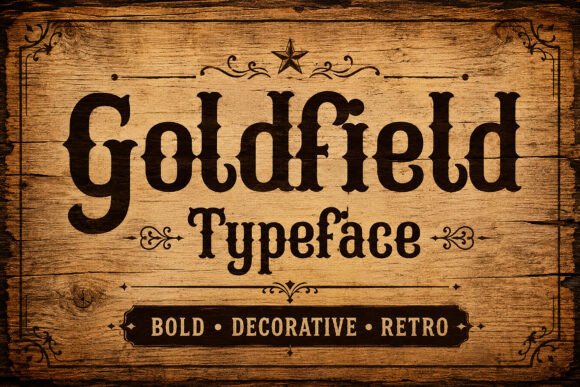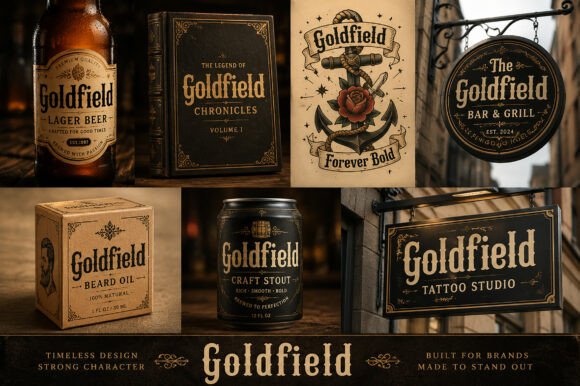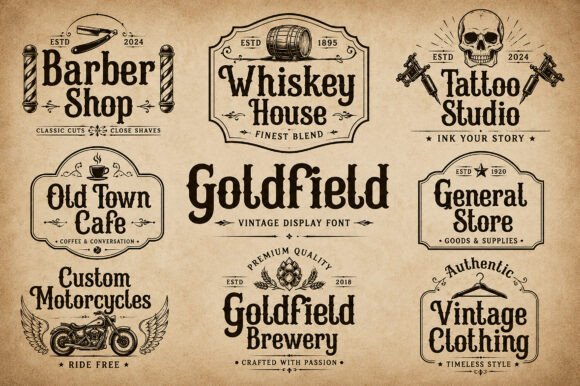
Introducing Goldfield: The Vintage-Retro Serif Font that’s Stealing Hearts
Have you ever been in the middle of a design project, and suddenly, you’re stuck on finding the perfect font? I recall a recent experience where I was working on a western-themed poster, and my client specifically asked for a font that would transport their audience back to the wild west. After hours of scouring the internet, I stumbled upon Goldfield – an alluring vintage-retro serif font with a bold western twist. And let me tell you, it was love at first sight! 💕
The Story Behind Goldfield
Goldfield is more than just a font – it’s a time machine in typography form. Crafted to evoke nostalgia, Goldfield is a unique iteration of classic typography mixed with old-west aesthetics, making it the perfect canvas for creative expression. Its distinctive attributes, such as impressive curves, ornamental edges, and solid character shapes, collectively encapsulate a bygone era. But don’t be fooled by its historical allure; this typeface possesses a crisp visual impact allowing it to stand tall in the contemporary design scene.
My Honest Review of Goldfield
So, what do I love about Goldfield? Here are a few things that make it a standout font:
- ✨ Unique blend of vintage and retro elements with a bold western twist
- ✅ Impressive curves and ornamental edges that add a touch of elegance
- ✅ Solid character shapes that make it perfect for headlines and titles
- ✅ Timeless charm with a modern finish that fits perfectly in contemporary designs
Now, I’m not saying it’s perfect. Here are a few quirks to keep in mind:
- ⚠️ Some users might find the font a bit too bold for certain designs
- 🤔 Limited availability of certain OpenType features in certain software
Goldfield was inspired by the classic typography of the American West. Imagine riding into town on a dusty horse, with the sun setting over the horizon. That’s the feeling that Goldfield aims to evoke – a sense of nostalgia and timeless charm. The designer behind Goldfield wanted to create a font that would transport users back to a bygone era, while still feeling modern and fresh.
| Font Name | Goldfield Font |
| Q: What makes Goldfield unique? | A: Goldfield’s unique blend of vintage and retro elements with a bold western twist makes it a standout font. |
| Q: Is Goldfield suitable for body text? | A: While Goldfield is perfect for headlines and titles, it might be a bit too bold for body text. Consider pairing it with a complementary font for body text. |